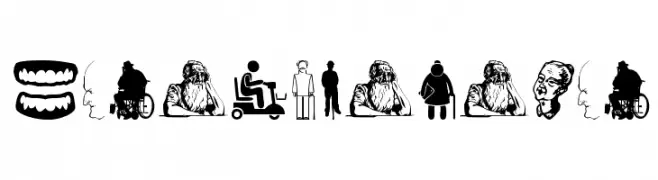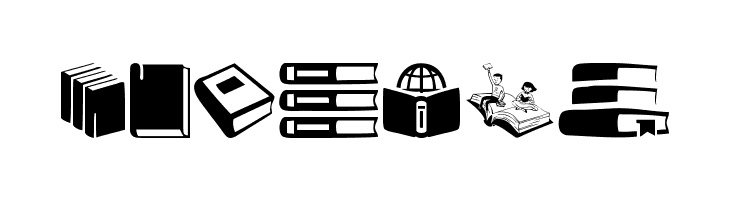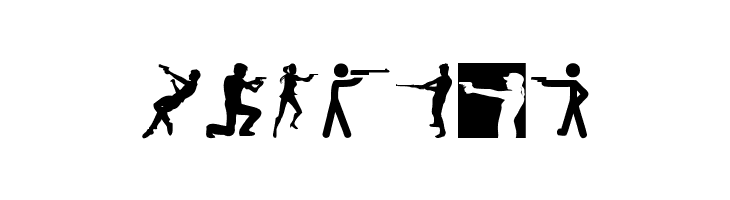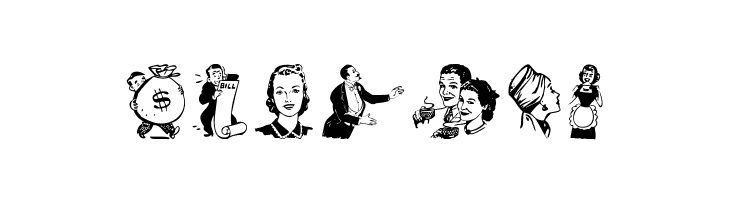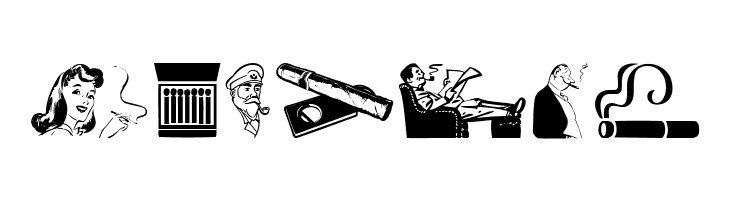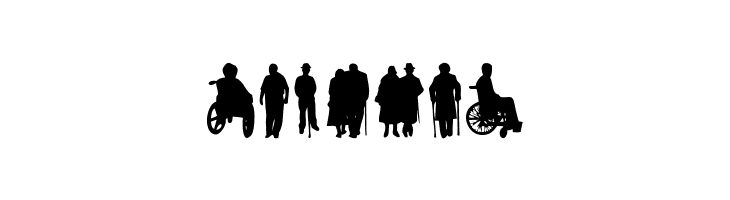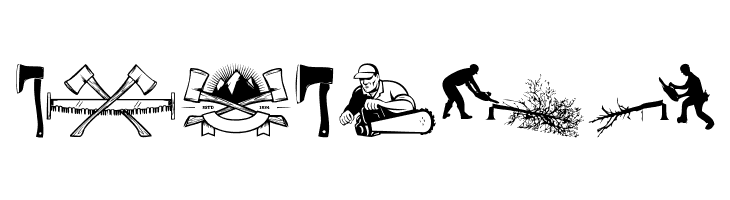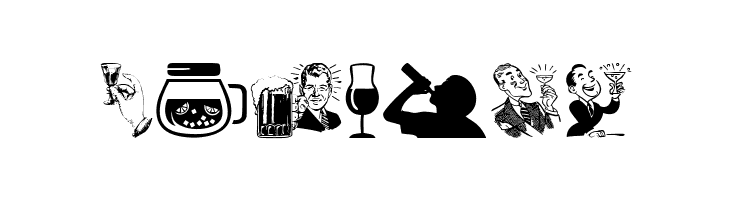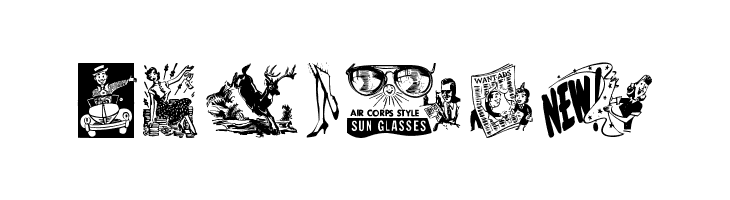
A bold pictogram font of library and book-themed icons.
Decorative pictogram font with shooter-themed silhouettes.
A pictographic icon set themed around cleaning and housekeeping.
Retro illustrative dingbat set with vintage comic and advertising motifs.
A retro-themed dingbat font with smoking-related illustrations.
A decorative pictogram font focused on senior citizens and aging themes.
A pictogram font featuring lumberjack and woodcutting motifs.
Alcohol-themed pictogram display font with bold, illustrative icons.
Vintage-themed dingbat illustrations in a mid-century comic style.